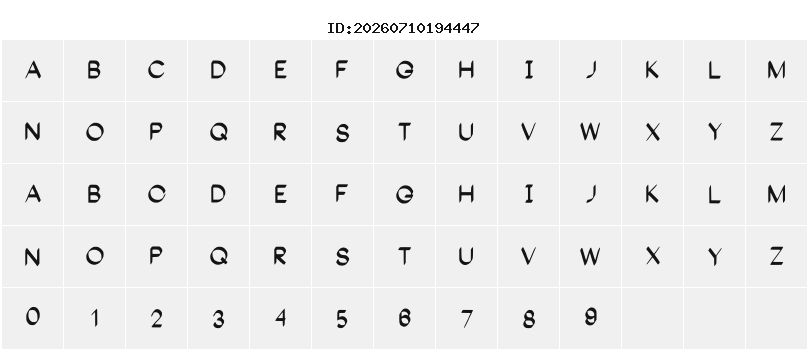
Gangnam Preview
About Gangnam.ttf
Gangnam.ttf is a modern, elegant sans-serif font designed for ultimate readability and visual harmony. Perfect for branding, headlines, web design, and print materials.